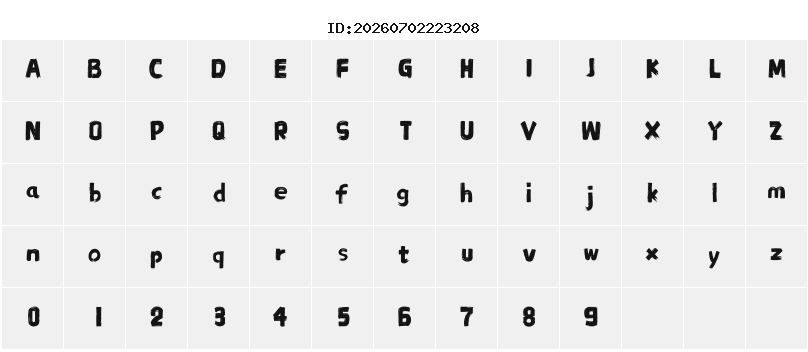
123-上首方义手刷体 Preview
• Font Name: 123-上首方义手刷体
• Manufacturer: 上首造字
About 123-上首方义手刷体.ttf
123-上首方义手刷体.ttf is a modern, elegant sans-serif font designed for ultimate readability and visual harmony. Perfect for branding, headlines, web design, and print materials.